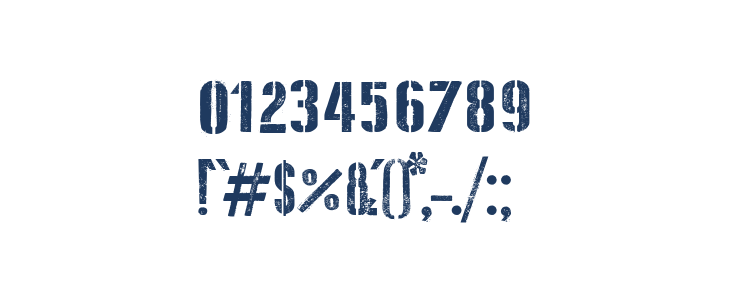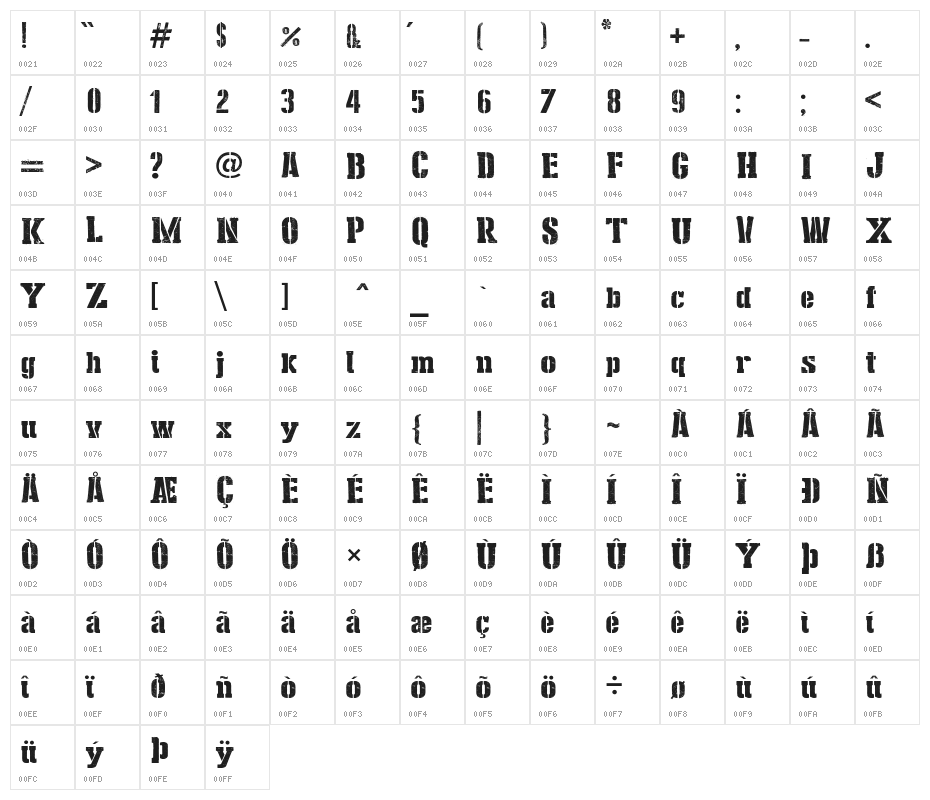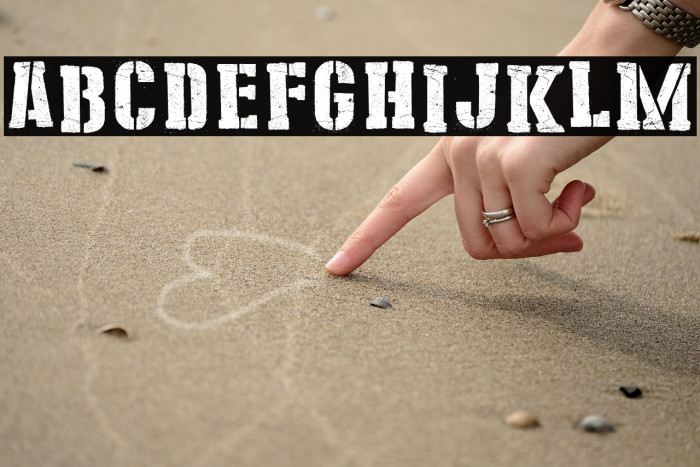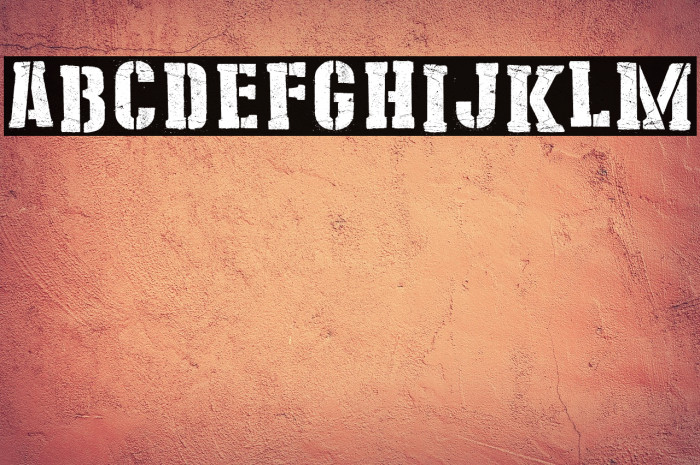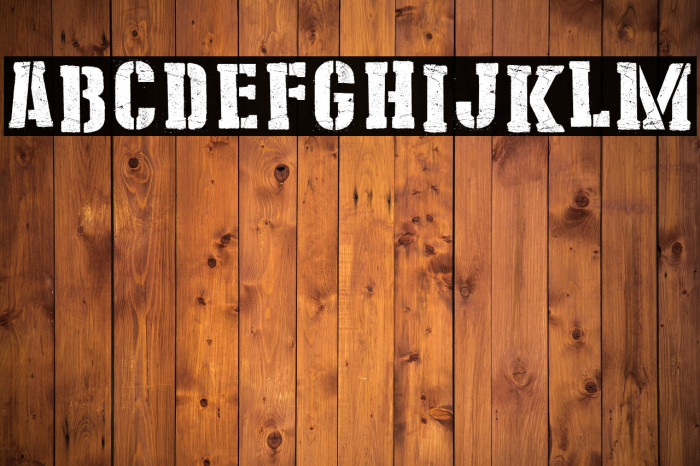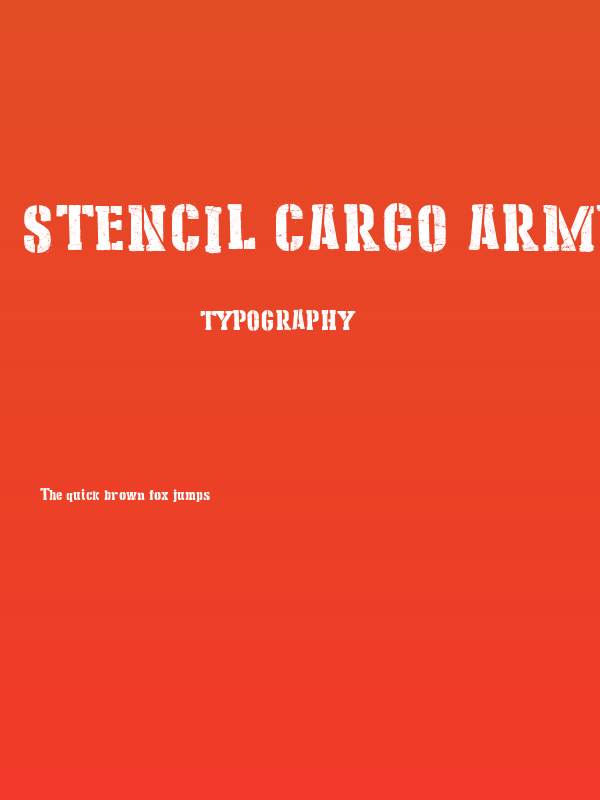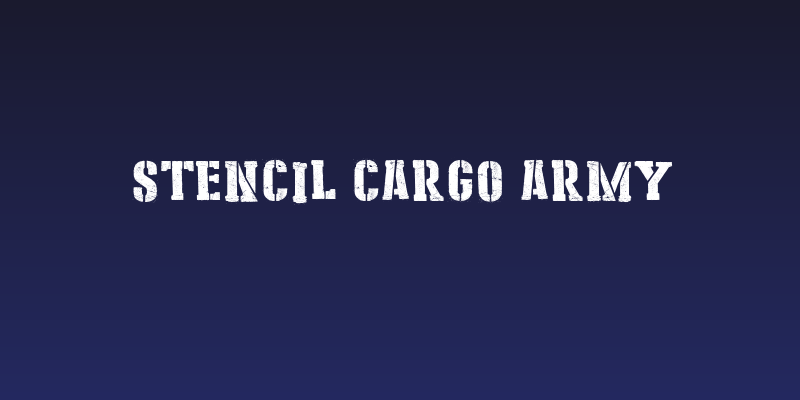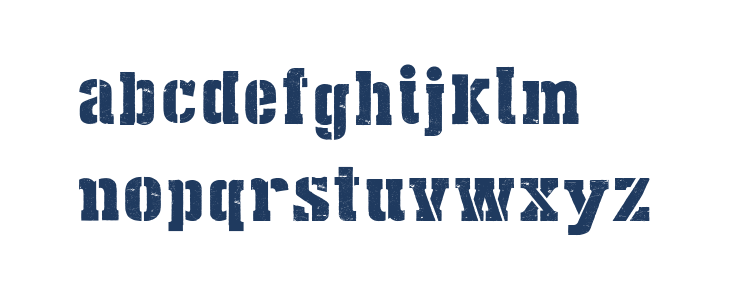
Stencil Cargo Army Font
Stencil Cargo Army Description
This font features a rugged, military-inspired stencil design, characterized by bold, blocky letters with distinct gaps that mimic the look of traditional stenciling. The texture is rough, giving it an authentic, worn appearance that suggests use in industrial or military settings. The uppercase and lowercase letters maintain a consistent style, with numbers and special characters following the same aesthetic. This font is ideal for projects that require a strong, impactful look, such as posters, signage, or branding that aims to convey strength and durability.
| Proposed Projects | Ideal for military-themed designs, industrial branding, posters, and signage. |